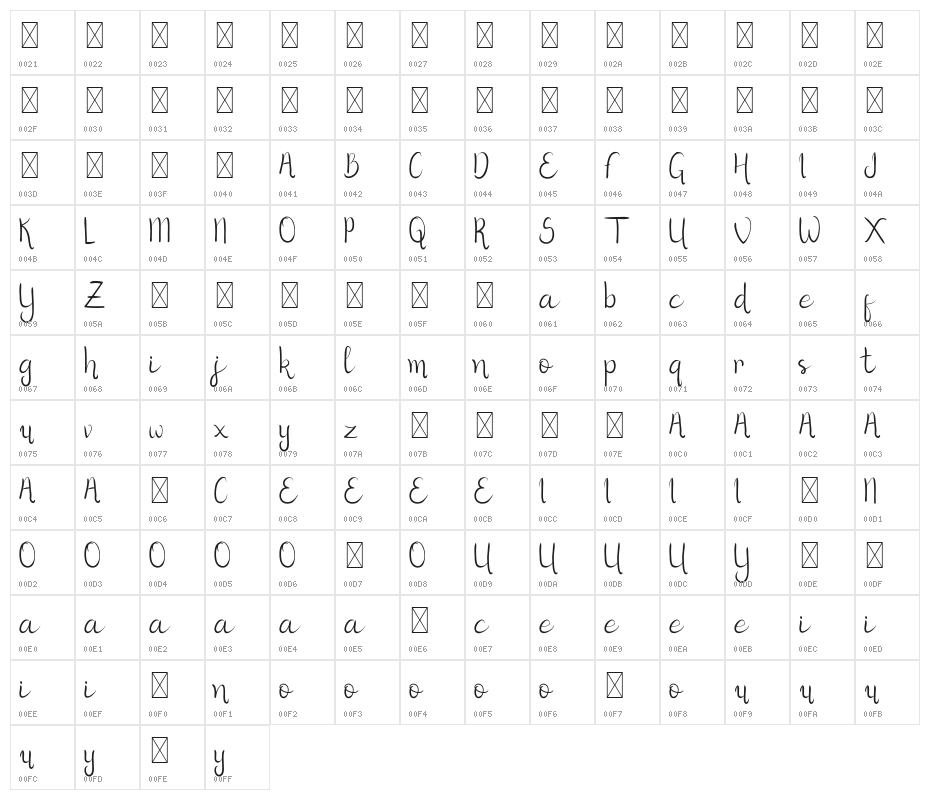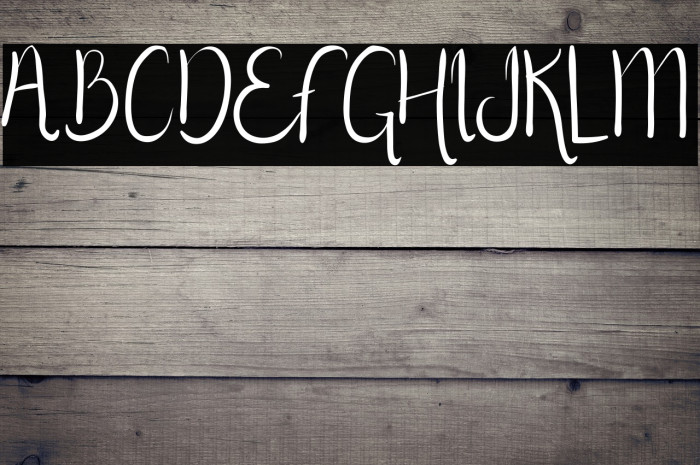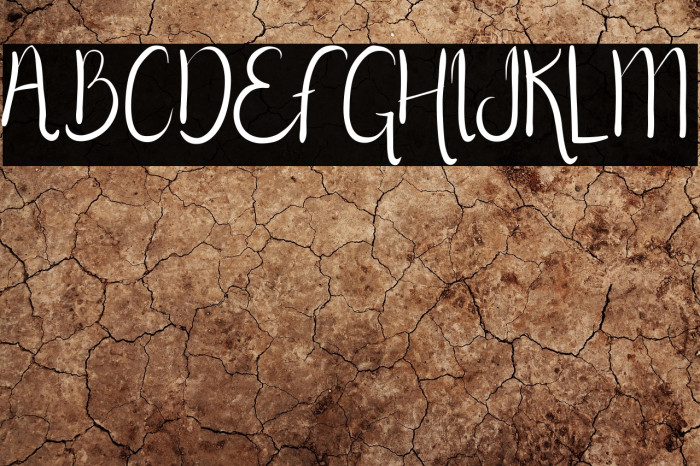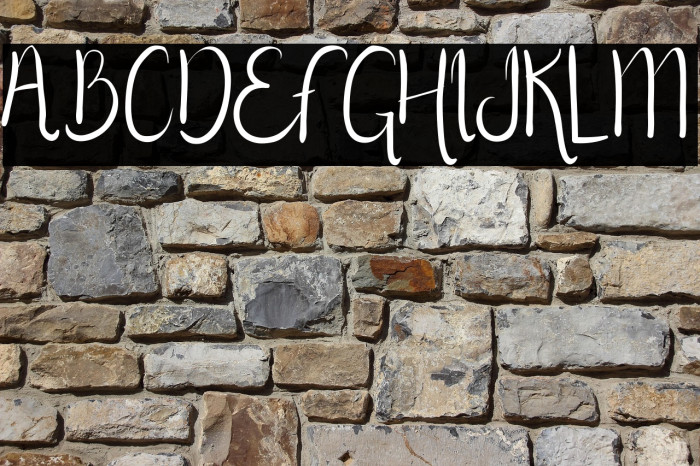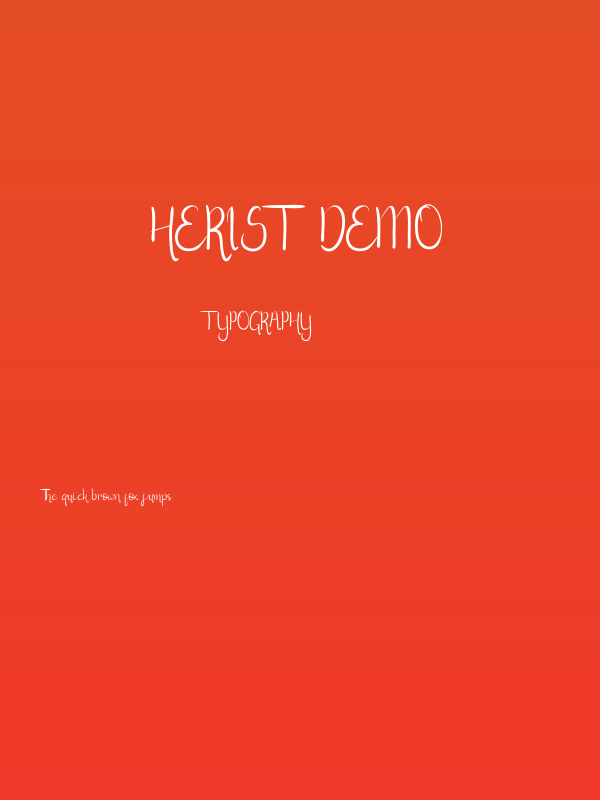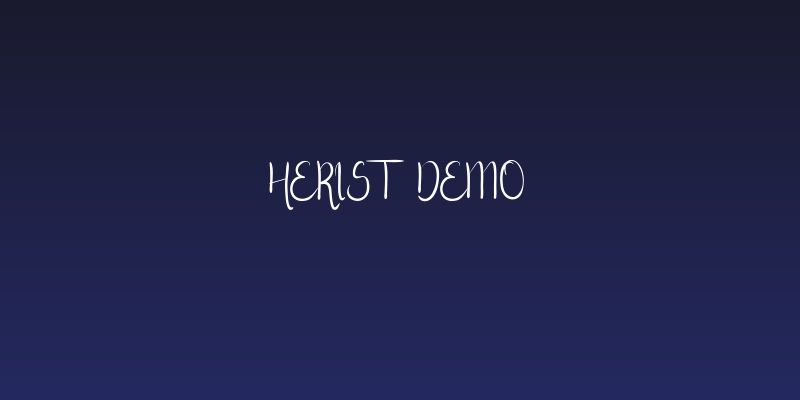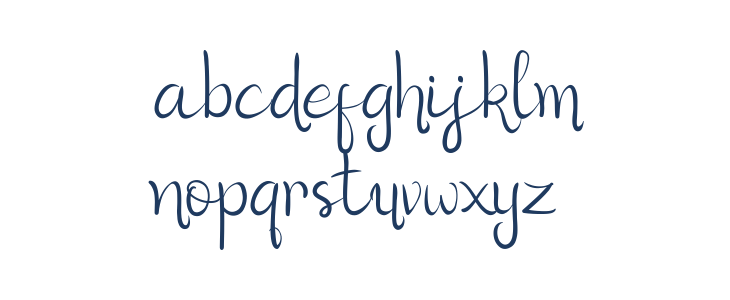
Herist DEMO Font
Herist DEMO Description
This font features a playful and artistic script style with a handwritten feel. The uppercase letters are tall and slender, with a slight slant that adds a dynamic flow to the text. The lowercase letters maintain a consistent style, with smooth curves and a casual elegance. The strokes vary in thickness, providing a medium contrast that enhances readability while maintaining a unique character. The font's overall appearance is both modern and whimsical, making it suitable for creative projects that require a personal touch.
| Overall Style | Modern, Whimsical |
| Use Case | Headlines, Artistic projects, Personal branding |
| Proposed Projects | Ideal for greeting cards, invitations, personal branding, and artistic projects. |